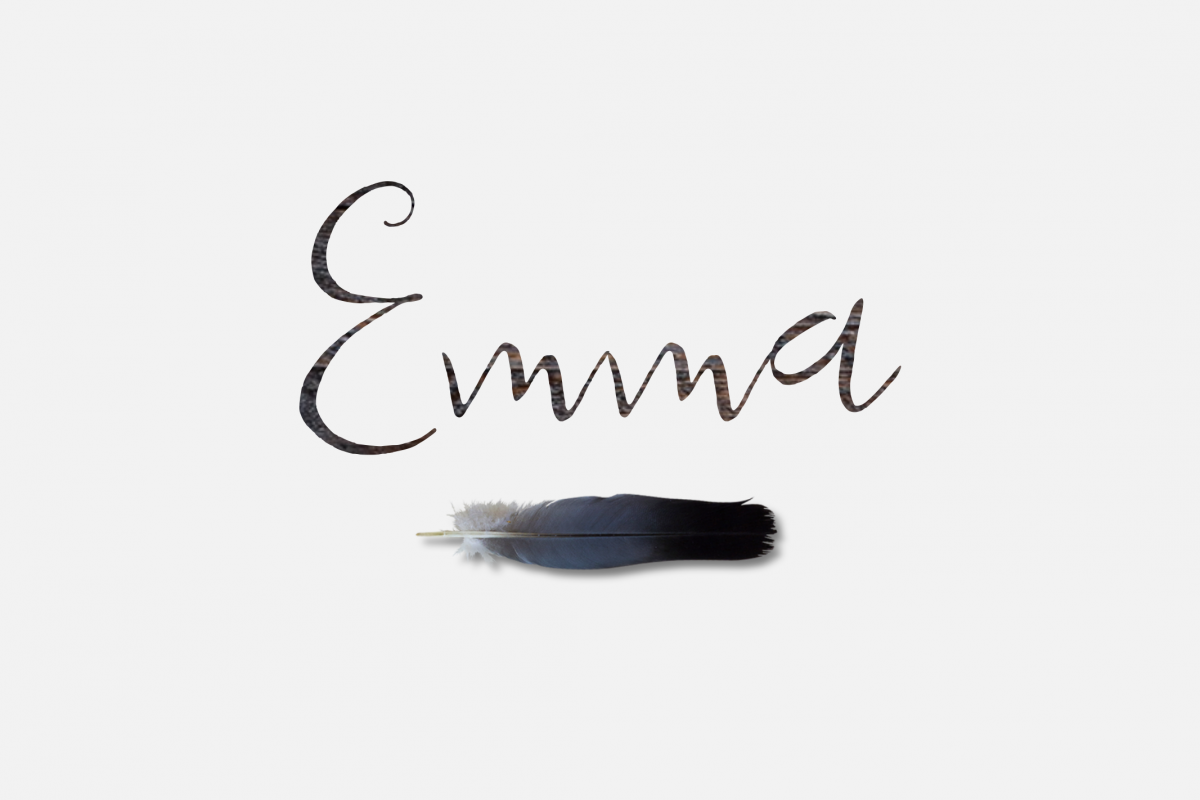
Hello Emma
It’s the moment we have all been waiting for…. The latest script font of The Sameeh Store Collection is here!
Emma Script is guaranteed to make your text stand out - perfect for logos, printed quotes, invitations, cards, product packaging, headers and whatever your imagination holds.